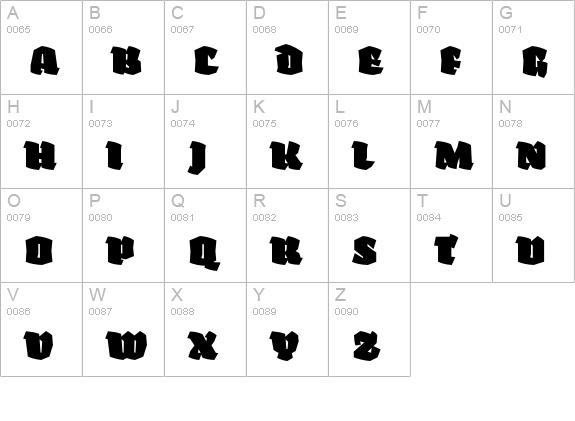
Fakir Display Black is a maximum-weight, dramatic variant in the Fakir typeface family \xE2\x80\x94 well suited to maximum-impact headlines, posters, and packaging.